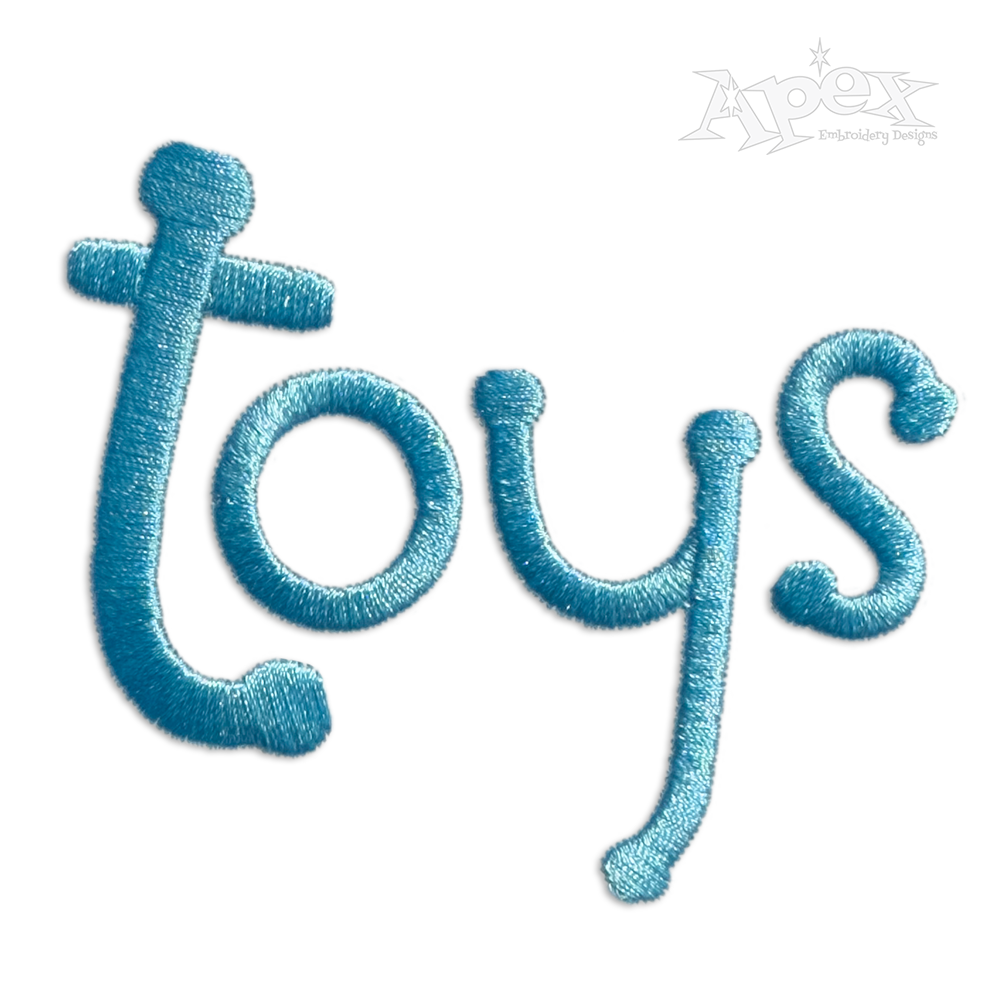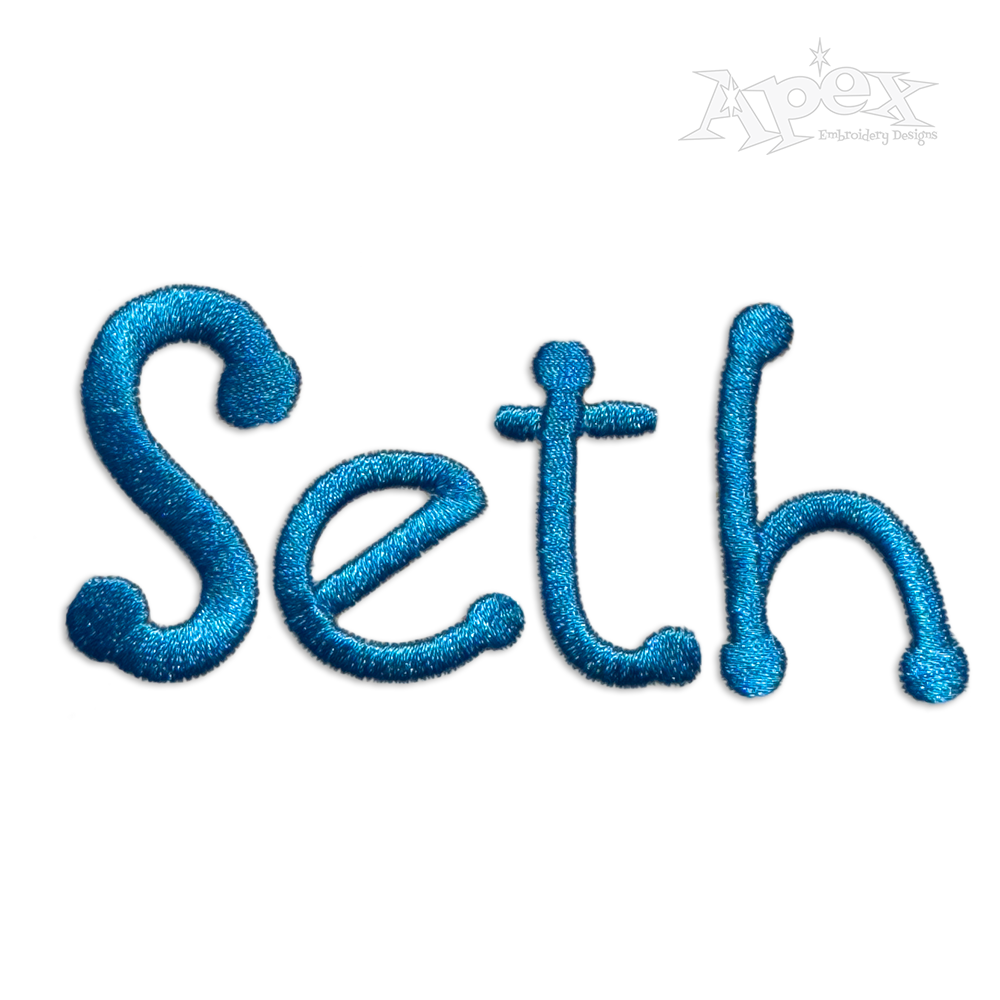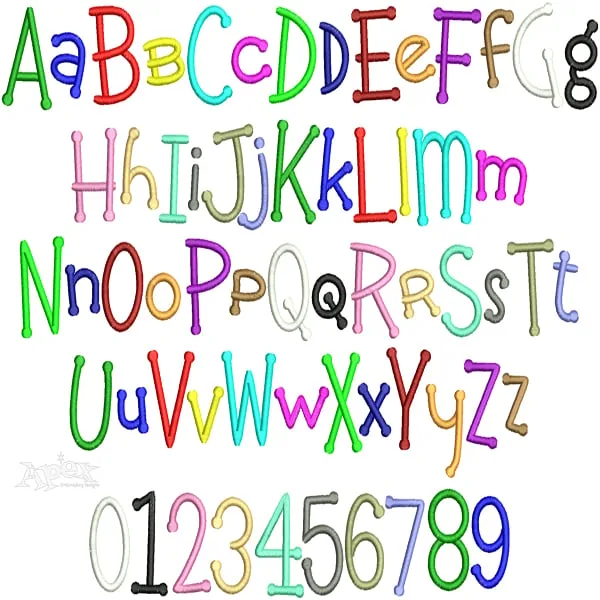
Wacky Wonky Embroidery Fonts
Every stitch of our Wacky Wonky Embroidery Font celebrates the uninhibited spirit of childhood imagination and pure, unfiltered joy. When sketching these letterforms on the digitizing table, we deliberately abandoned the rigid rules of traditional baseline geometry to embrace dynamic tilts, energetic curves, and delightfully eccentric character silhouettes. Each glyph bounces with its own distinct rhythm, punctuated by playful circular accents that lend an irrepressible bounce to the text. Rendered in radiant, high-sheen satin stitch, this alphabet transforms humble thread into an expressive work of art, evocative of cherished storybooks, whimsical daydreams, and laughter-filled afternoons.
- 1.0-inch Height: An adorable, compact scale digitized with ultra-precise satin paths, ideal for subtle monogramming, delicate collar details, and personalizing small gifts.
- 2.0-inch Height: The ultimate all-around staple size, providing bold legibility and vibrant visual presence on kidswear, pouches, and nursery accessories.
- 3.0-inch Height: A showstopping statement size featuring rich, generous satin columns that highlight every quirky angle and sculpted dot for maximum dimension.
Project Ideas for Wacky Wonky Embroidery Fonts
The cheerful personality of this font makes it an extraordinary centerpiece for bespoke gifting and vibrant everyday projects:
- Custom Boutique Childrenswear: Create unforgettable milestone birthday tees, personalized denim jackets, and playful overalls customized with names or spirited catchphrases.
- Heirloom Nursery Textiles: Stitch sweet baby names onto plush minky blankets, organic cotton crib sheets, and decorative keepsake pillows.
- Playful School & Camp Gear: Elevate canvas backpacks, fabric pencil pouches, and lunch coolers with distinctive lettering that kids will spot from across the room.
- Personalized Gift Sets: Transform casual tote bags, hooded bath towels, and colorful aprons into treasured custom monogramming keepsakes.
- Lively Holiday Decor: Embellish playful Christmas stockings, Easter baskets, and Halloween treat bags with an exuberant, hand-lettered aesthetic.
Because the Wacky Wonky letterforms feature joyful angles and varied baselines, thoughtful placement will let their dynamic personality truly shine:
- Center Chest & Mid-Torso: Perfect for children’s sweatshirts and tees. Align the text block so the visual mass balances around the garment's natural center point, allowing the eccentric ascenders and descenders to dance naturally.
- Brim & Pocket Flaps: The 1-inch size nests effortlessly along curved baseball cap panels, jean jacket pocket hems, or canvas tote slip pockets.
- Diagonal Sash Placements: Embrace the font’s playful slant by stitching single monograms or short names along the diagonal bias of a hooded towel corner or throw pillow edge.
- Stacked Name Layouts: For two-word names or phrases, nestle overlapping vowels and consonants close together to amplify the whimsical, puzzle-like charm of the composition.
Wacky Wonky Embroidery Fonts Craft & Letterform Details
True artistic digitizing is never a matter of simple automated software conversion; it requires an intuitive feel for how thread interacts with fabric tension. In digitizing the Wacky Wonky alphabet, we paid special attention to push-pull compensation along every off-kilter stem and exaggerated loop. Each satin column is engineered with variable stitch directions that follow the natural sweep of the character, capturing ambient light to produce a fluid, sculptural luster.
The signature circular dot accents are digitized with underlay structures that build tactile loft without creating dense, bird-nesting hot spots. Clean travel stitches are discreetly buried beneath top layers, ensuring tidy transitions, minimal trimming, and an impeccably soft finish on the reverse side. The result is a spirited satin stitch alphabet that stitches with rhythmic speed, uncompromising durability, and a delightfully mischievous character.